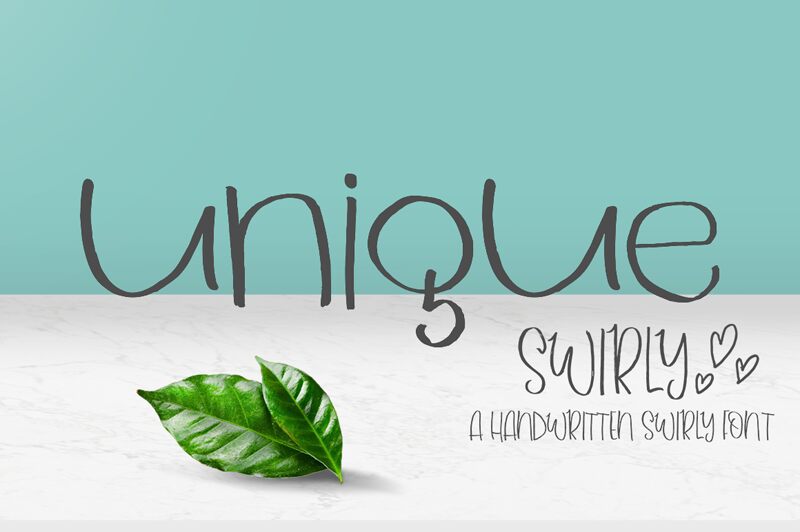
Unique Swirly, crafted by the talented Delisha Design, is a captivating handwritten font that exudes elegance and charm. With its semi-light weight, this font adds a delicate touch to any project. Its swirling curves and playful strokes make it ideal for wedding invitations, feminine branding materials, and whimsical blog headers. Whether you're creating a romantic greeting card or designing a logo for an artisanal bakery, Unique Swirly effortlessly brings a touch of sophistication to your designs. Let this enchanting typeface infuse your projects with its graceful allure and leave a lasting impression on your audience.